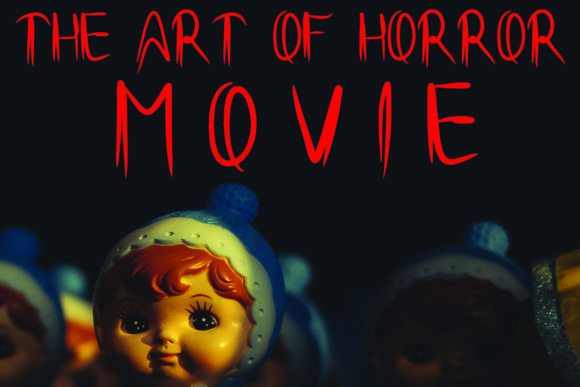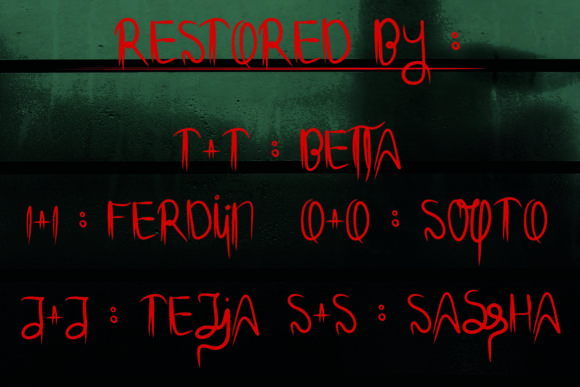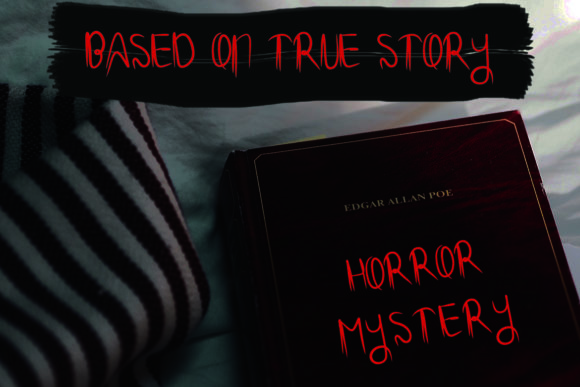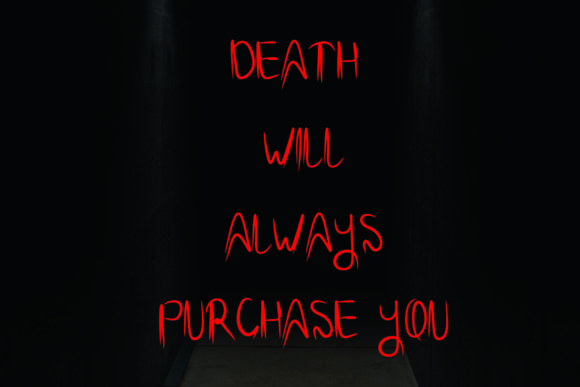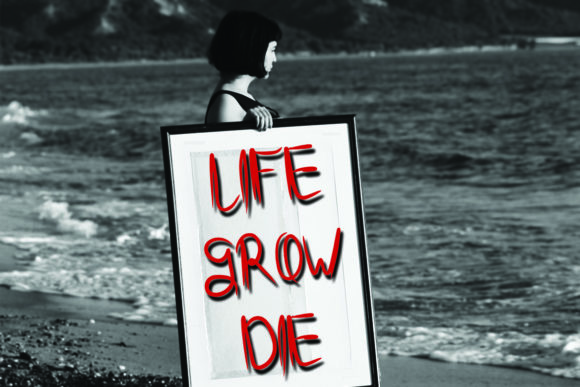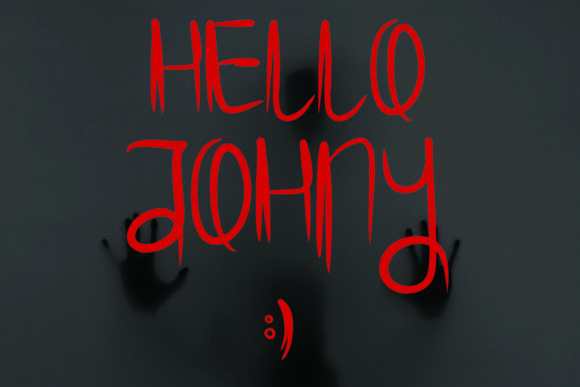
Introduction to Scary of Horror Font
Scary Of Horror is a scary-themed display font which can be used for various horror-themed projects such as Halloween themes, horror films, scary book covers and more.
Scary Of Horror is a scary-themed display font which can be used for various horror-themed projects such as Halloween themes, horror films, scary book covers and more
Key Features of Scary of Horror Font